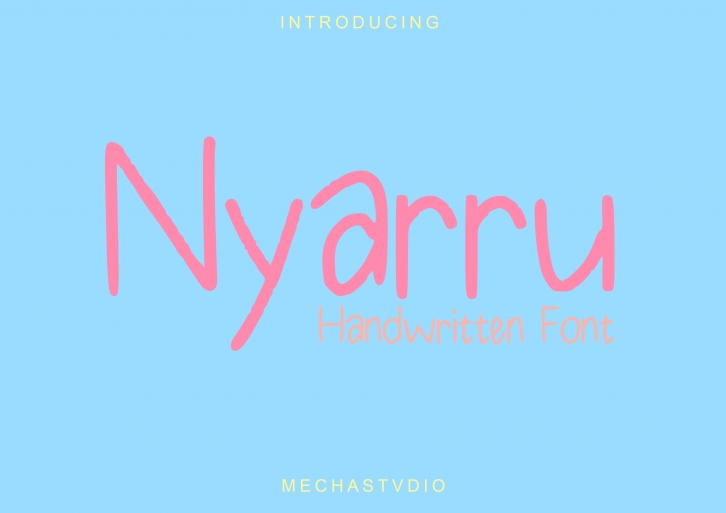
Nyarru is a simple custom handwritten sans serif style font with a unique feel and a playful impact. It will add a natural spark to any design project that you wish to create.